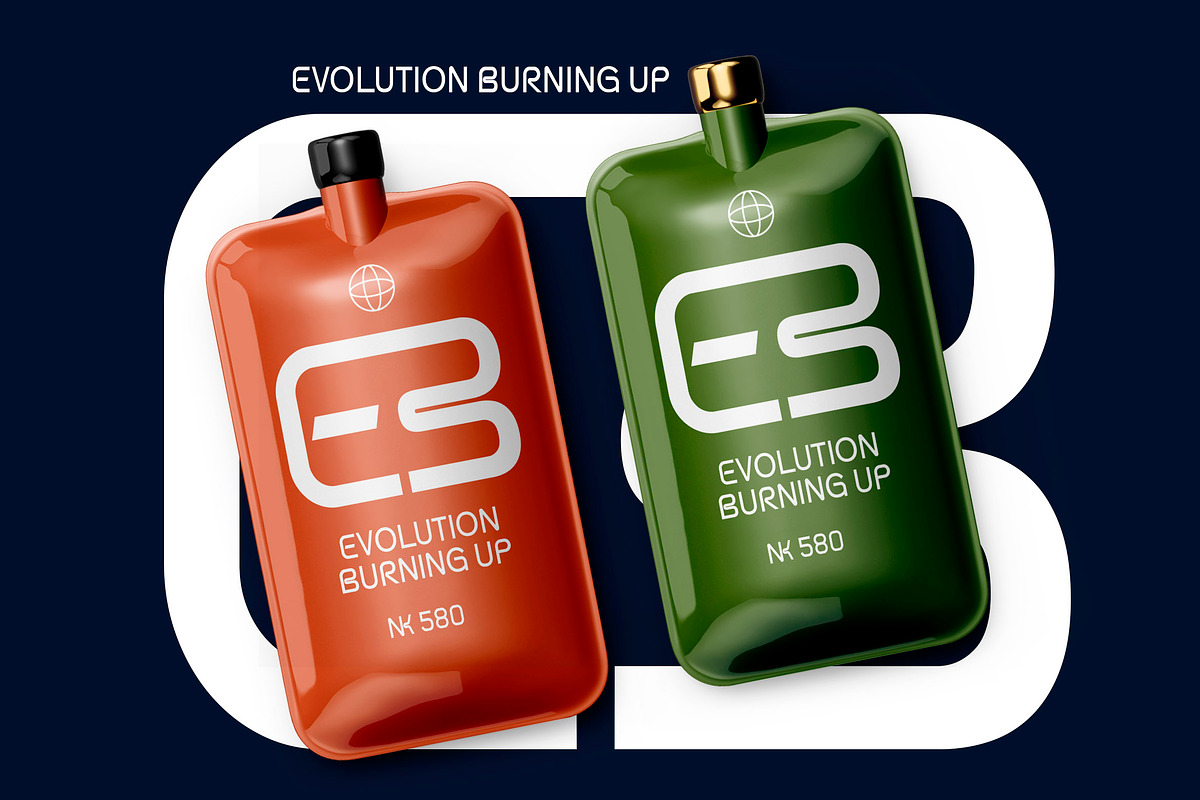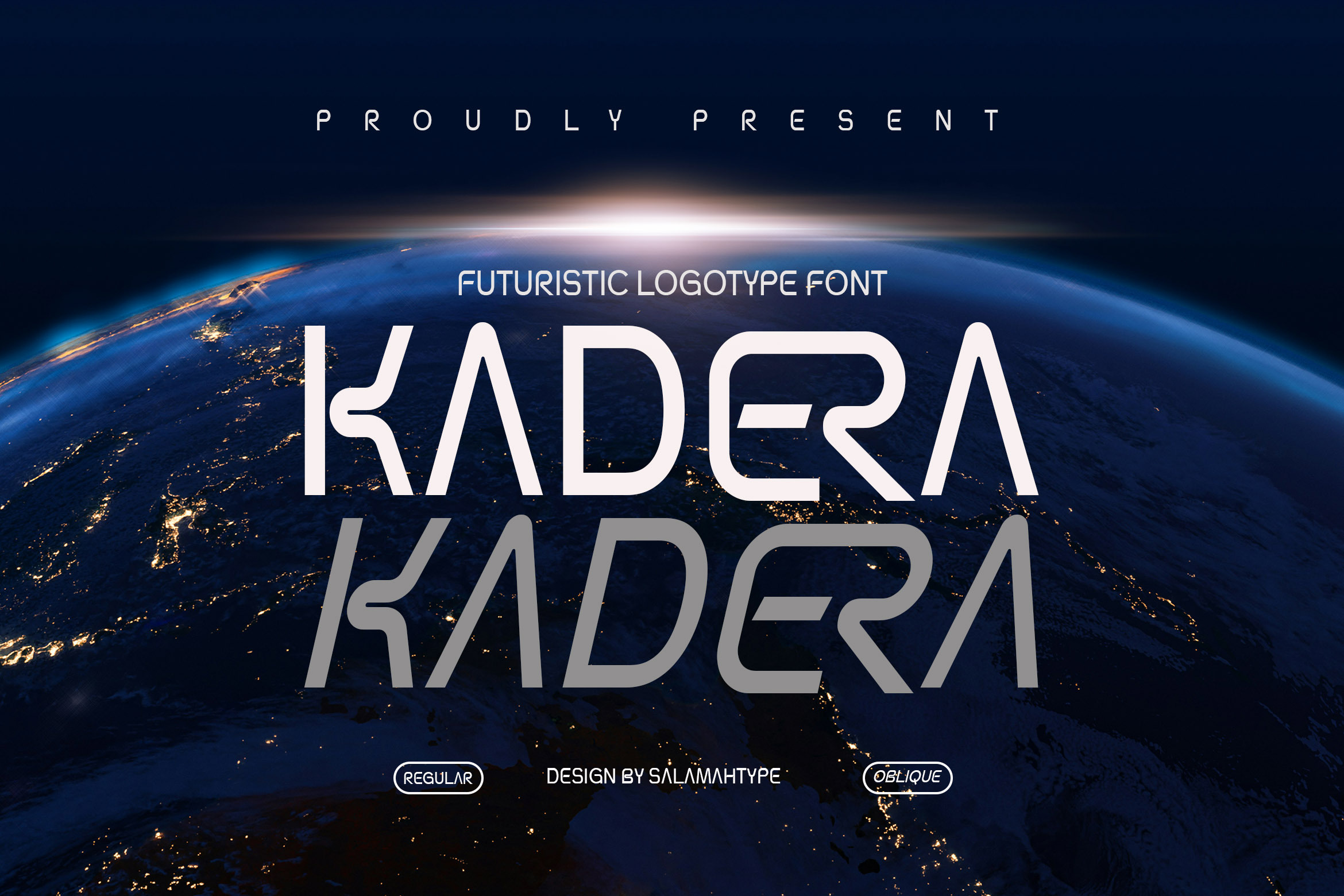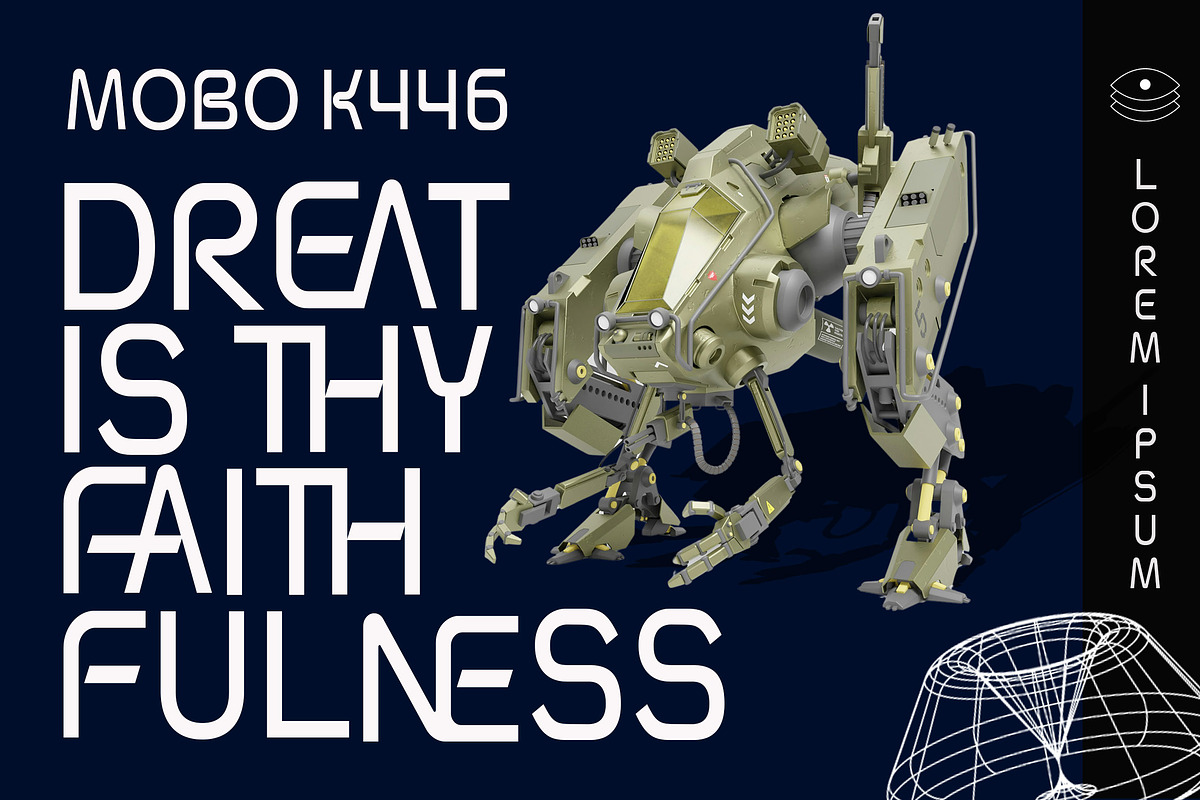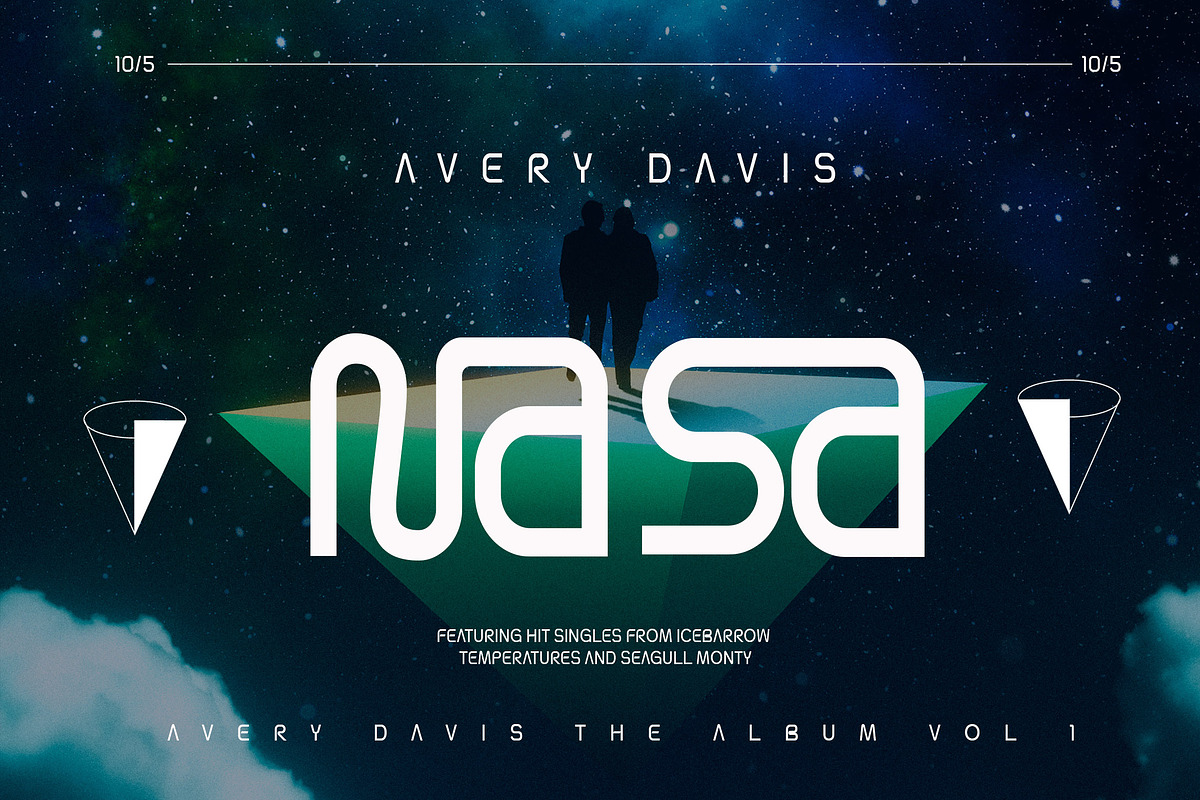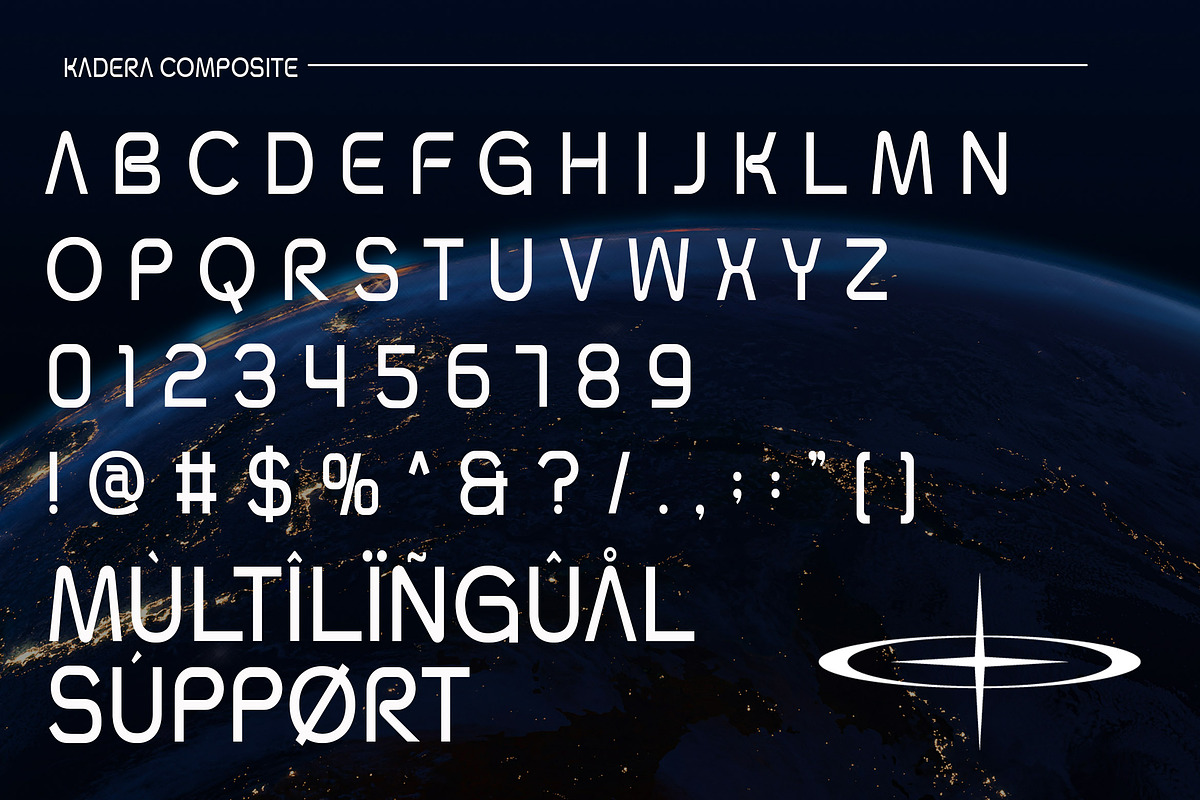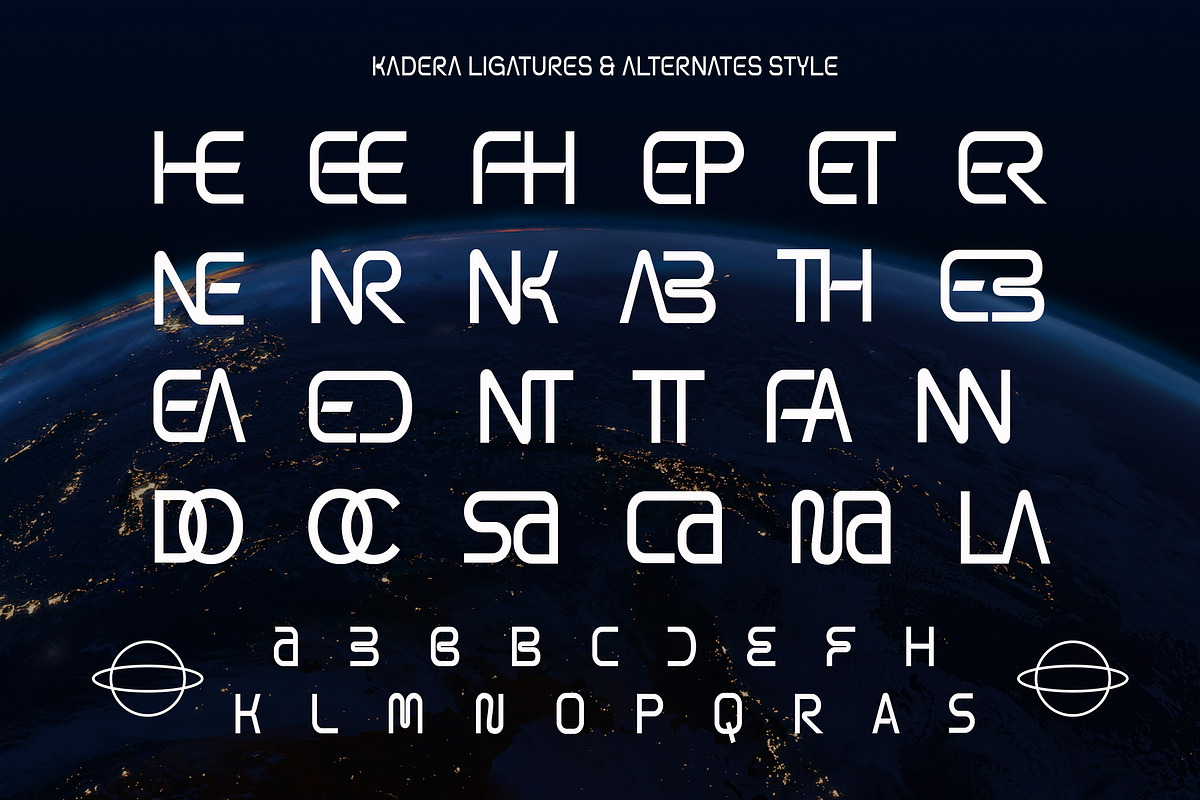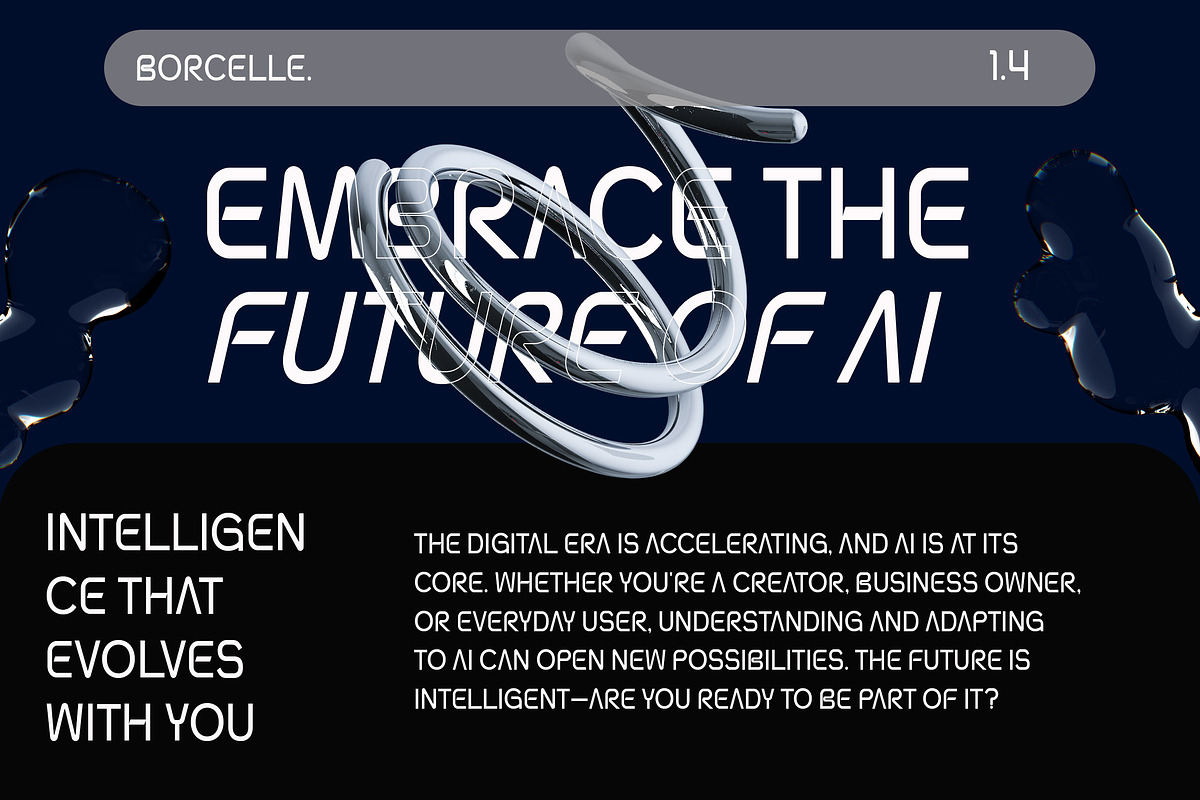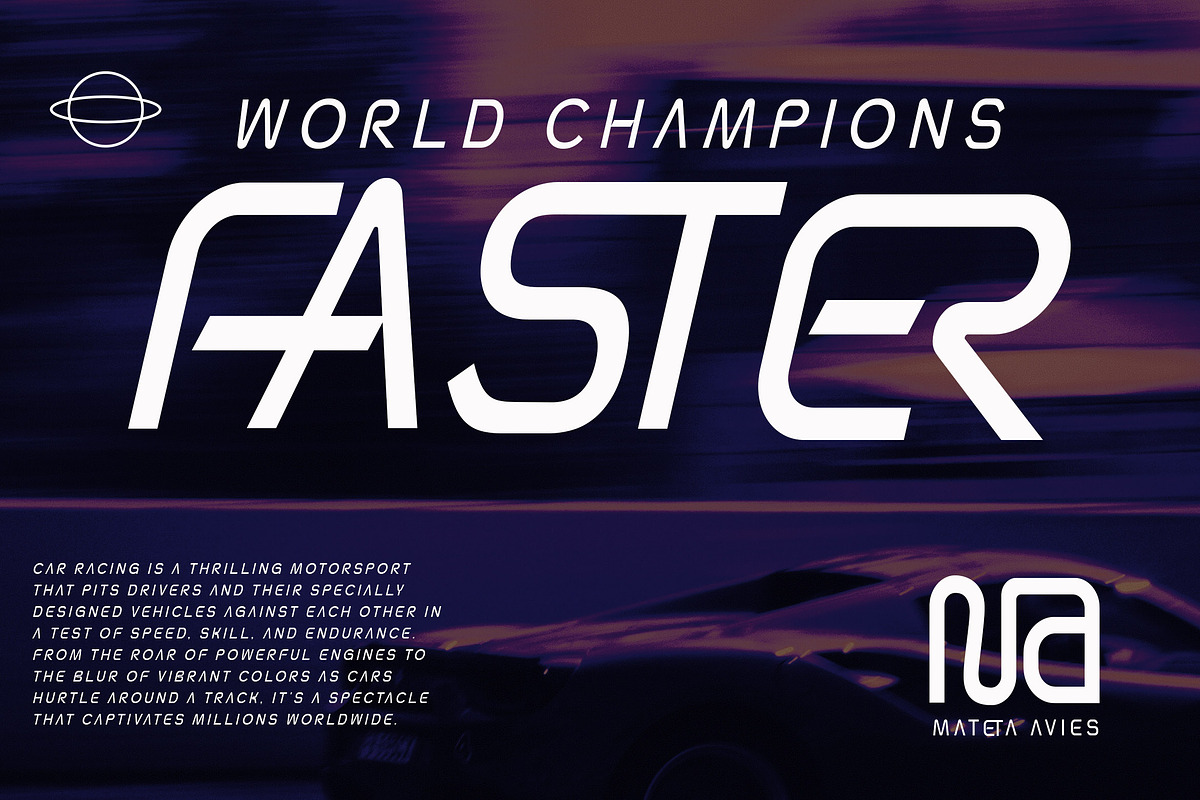
Kadera - Futuristic Font
Introducing Kadera, a sleek and innovative logotype font that embodies the spirit of the future. Designed for cutting-edge branding, Kadera features a bold and modern aesthetic with unique letterforms that merge geometry and minimalism, perfect for sci-fi themes, tech startups, gaming, apps, and digital design projects.
With two distinct styles – Regular and Oblique – Kadera offers flexibility and dynamic energy, allowing you to create impactful logos, posters, packaging, website headers, and more. Each character is carefully crafted to convey a sense of motion, precision, and digital elegance.
- All uppercase letters
- Futuristic and stylish design
- Two styles: Regular & Oblique
- Perfect for logos, headlines, branding, UI/UX, and tech-themed visuals